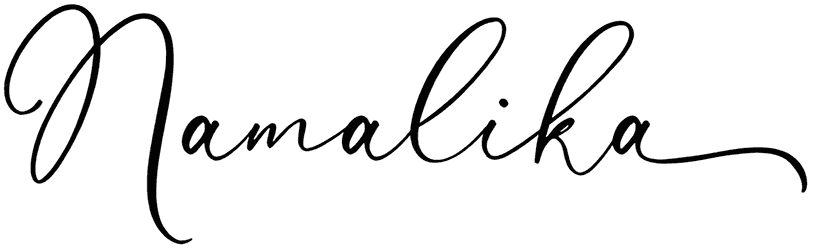
Namalika Font
If you want people to view your designs as a successful and admirable project, Namalika can be crucial in achieving this goal. This certificate font is hard to read and can keep the audience focused on your content longer.
It also introduces two styles that, by combining them, you will not need to download a new font for some time. So if you are running a packaging, tattoo, or invitation card and don’t need numbers, press the download button immediately.
Example: Namalika_